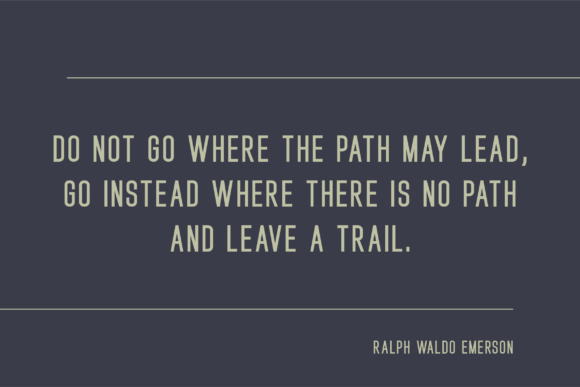
Cloverlyn Font: Elevate Your Design with a Modern, Classy Sans Serif Typeface
In the world of typography, a well-crafted font can make all the difference in elevating your design to the next level. Introducing Cloverlyn, a modern, classy sans serif typeface that is sure to impress. This versatile font is perfect for a wide range of applications, from logos and weddings to invitations, quotes, advertisements, print, magazines, and more.
The Characteristics of Cloverlyn Font
Cloverlyn is a sans serif typeface that boasts a clean and minimalist aesthetic. The font contains upper characters, numbers 0-9, and a range of punctuation and symbols, making it a comprehensive and functional font for various design needs. Its modern and classy look makes it an excellent choice for designers who want to add a touch of sophistication to their work.
What Makes Cloverlyn Font So Versatile?
Cloverlyn’s versatility lies in its ability to adapt to various design contexts. Whether you’re working on a logo, invitation, or advertisement, this font can help you achieve a professional and polished look. Its clean lines and simple shapes make it easy to read and understand, while its modern aesthetic adds a touch of elegance and refinement.
Perfect for Logos and Branding
When it comes to creating a logo or brand identity, the right font can make all the difference. Cloverlyn’s modern and classy look makes it an excellent choice for logos, as it can help convey a sense of professionalism and sophistication. Its versatility also makes it suitable for various industries, from technology and finance to fashion and beauty.
Ideal for Weddings and Invitations
Weddings and invitations require a special kind of elegance and refinement. Cloverlyn’s clean and minimalist aesthetic makes it perfect for creating beautiful and sophisticated wedding invitations, programs, and other stationery. Its modern look also ensures that your design stands out from the crowd.
Great for Advertisements and Marketing Materials
In the world of advertising and marketing, a well-crafted font can help grab attention and convey your message effectively. Cloverlyn’s modern and classy look makes it an excellent choice for advertisements, brochures, and other marketing materials. Its clean lines and simple shapes ensure that your message is clear and easy to understand.
Excellent for Print and Magazines
Cloverlyn is also perfect for print and magazine designs. Its versatility and legibility make it suitable for articles, headlines, and other typography needs. Whether you’re working on a fashion magazine or a business publication, this font can help you achieve a professional and polished look.
Key Features of Cloverlyn Font
- Modern and classy sans serif typeface
- Contains upper characters, numbers 0-9, and a range of punctuation and symbols
- Extremely versatile and adaptable to various design contexts
- Perfect for logos, weddings, invitations, quotes, advertisements, print, magazines, and more
- Clean lines and simple shapes for easy readability
Why Choose Cloverlyn Font?
With so many fonts available, why choose Cloverlyn? Here are a few reasons:
- Unique and distinctive look: Cloverlyn’s modern and classy aesthetic sets it apart from other fonts.
- Versatility: This font can be used in various design contexts, from logos to print and magazines.
- Legibility: Cloverlyn’s clean lines and simple shapes ensure that your message is clear and easy to understand.
- Elegance and refinement: This font adds a touch of sophistication and elegance to any design.
In conclusion, Cloverlyn is a modern, classy sans serif typeface that is perfect for designers who want to elevate their work. Its versatility, legibility, and elegant aesthetic make it suitable for various design contexts, from logos and weddings to advertisements and print. Whether you’re a professional designer or just starting out, Cloverlyn is an excellent choice for any design project.